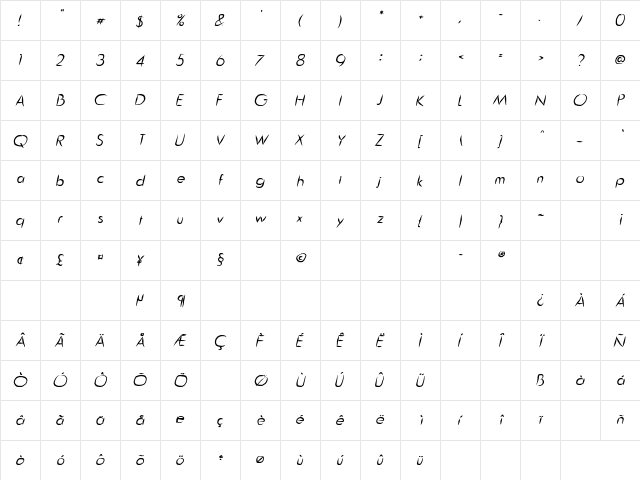
Guitar from Tree Italic
Design Context for Guitar from Tree Typeface
Guitar from Tree is a composed and adaptable typeface that performs quietly and consistently across a wide range of design contexts. Its italic angle brings a sense of urgency and motion to the letterforms.
Pro Tip: Use Guitar from Tree for emphasis, pull quotes, and subheadings where its slanted energy can add rhythm to the layout.